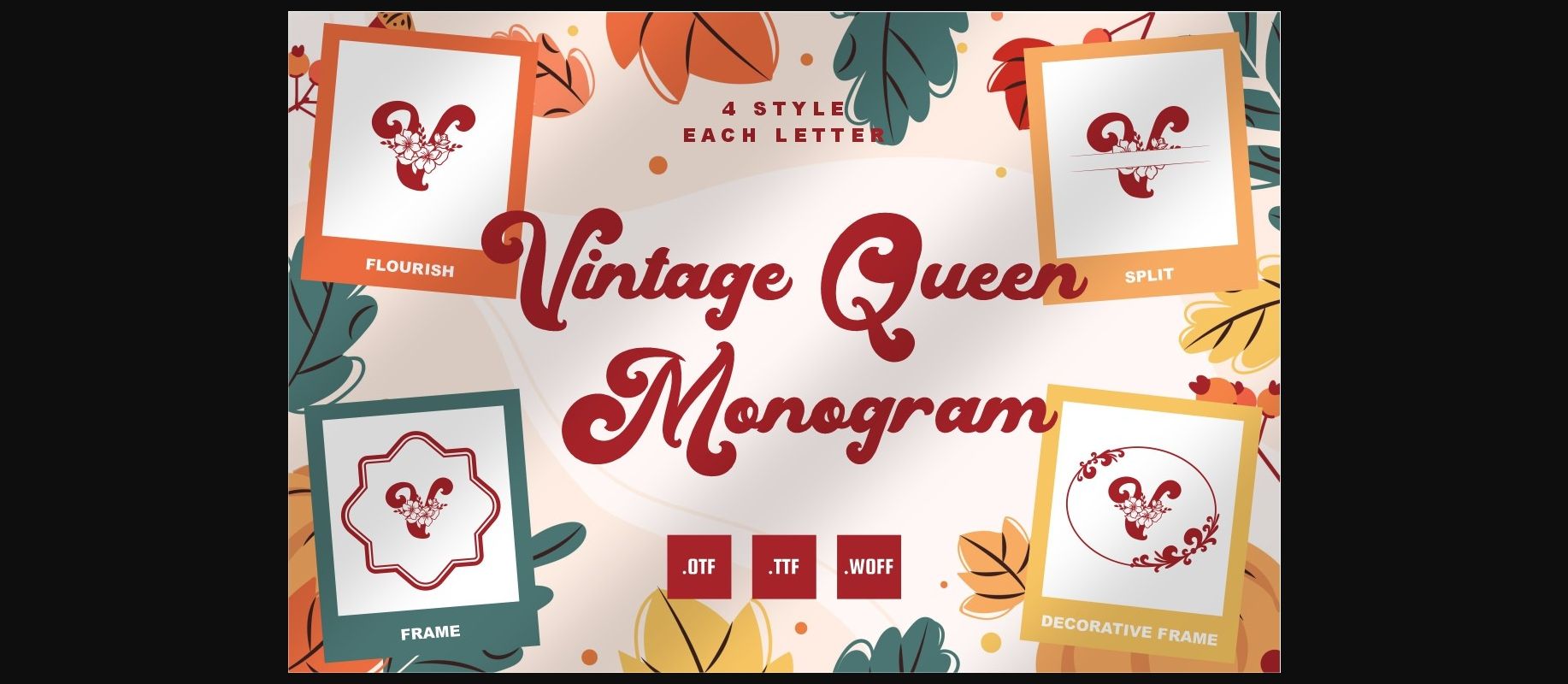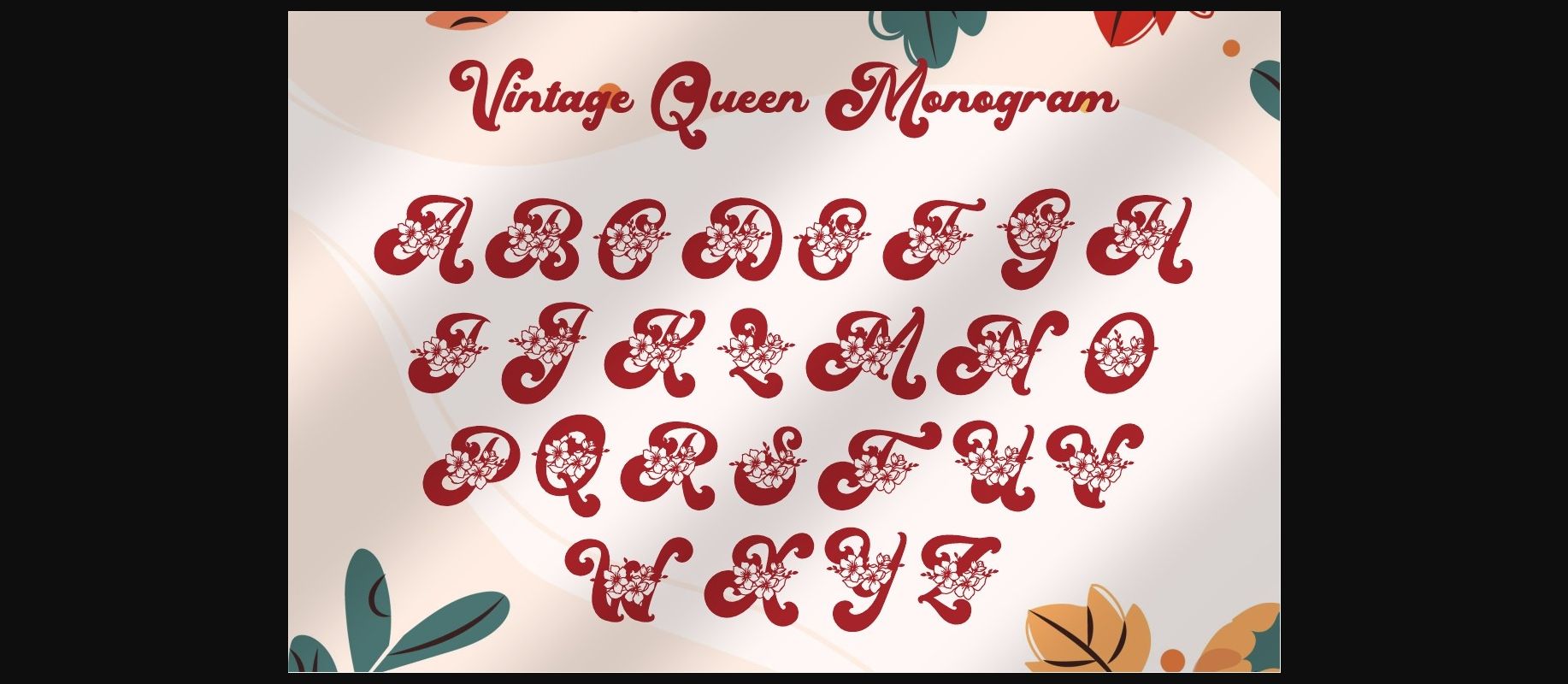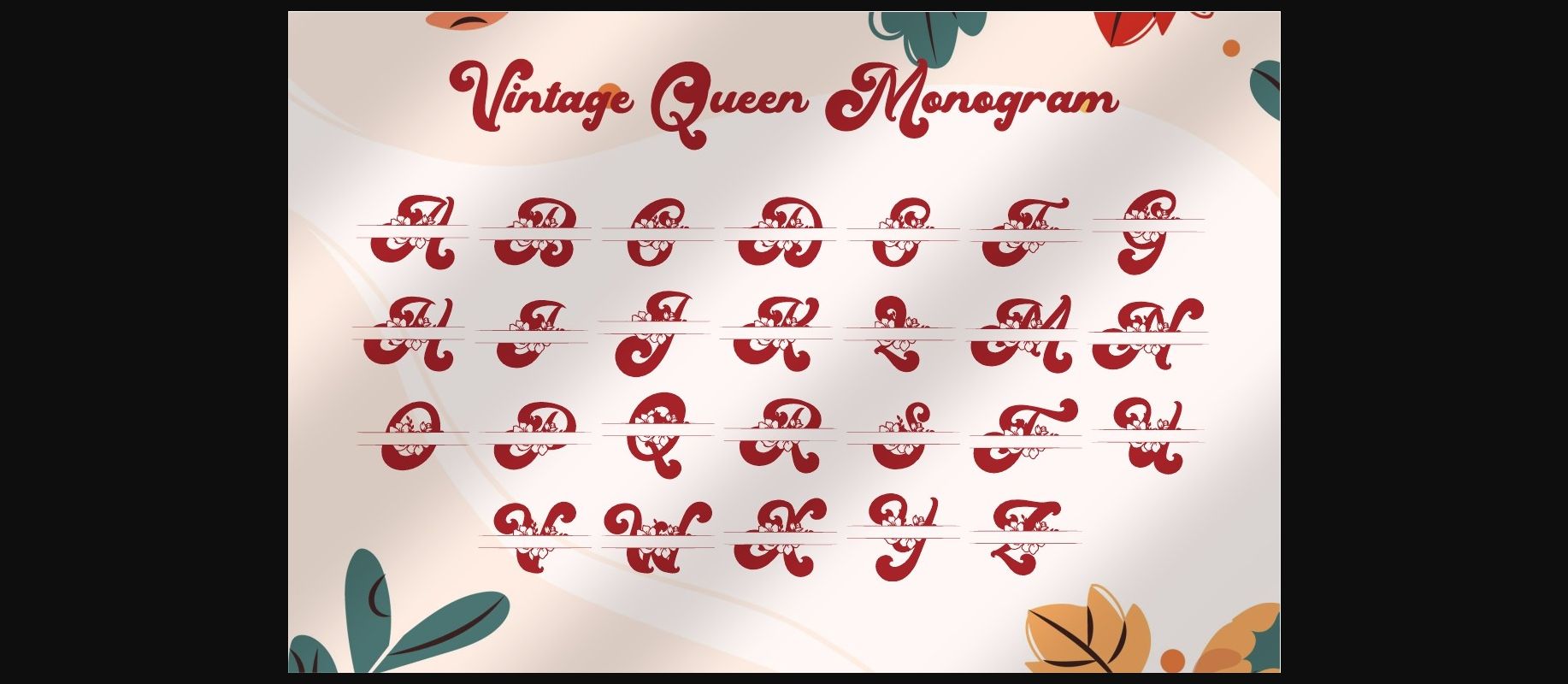
About Vintage Queen Monogram Font
Vintage Queen Monogram is a dazzling decorative font. This font is neatly crafted and highly detailed. Whatever the topic, Vintage Queen Monogram will be a wonderful asset to your font library, as it has the potential to enhance any creation.